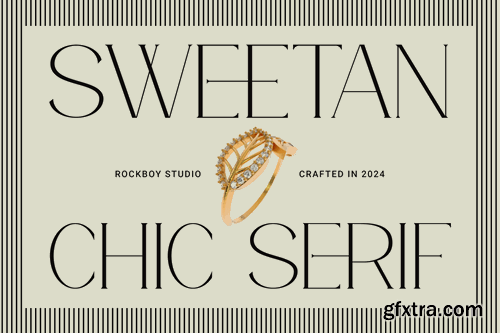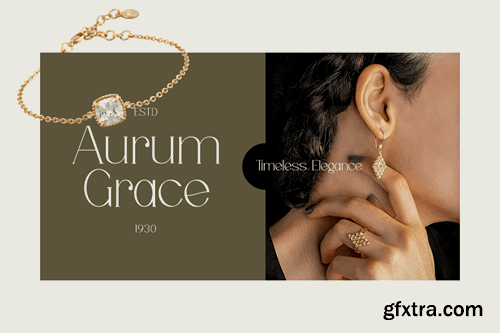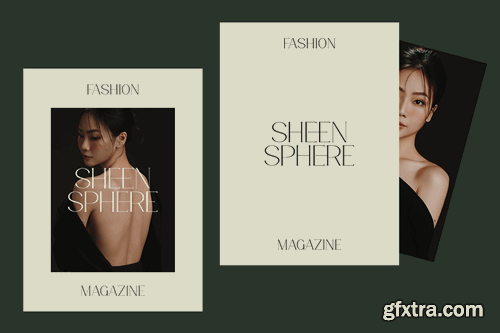
Sweetan - Chic Serif Font
Sweetan is an elegant and distinct serif font. Suitable for a wide variety of designs due to its neat and simple style, this font has the potential to become your favorite go-to font, no matter the occasion! What you get: PUA encoded = Accessible in the Adobe Illustrator, Adobe Photoshop, Adobe InDesign, even work on Microsoft Word. PUA Encoded Characters - Fully accessible without additional design software. Thank You